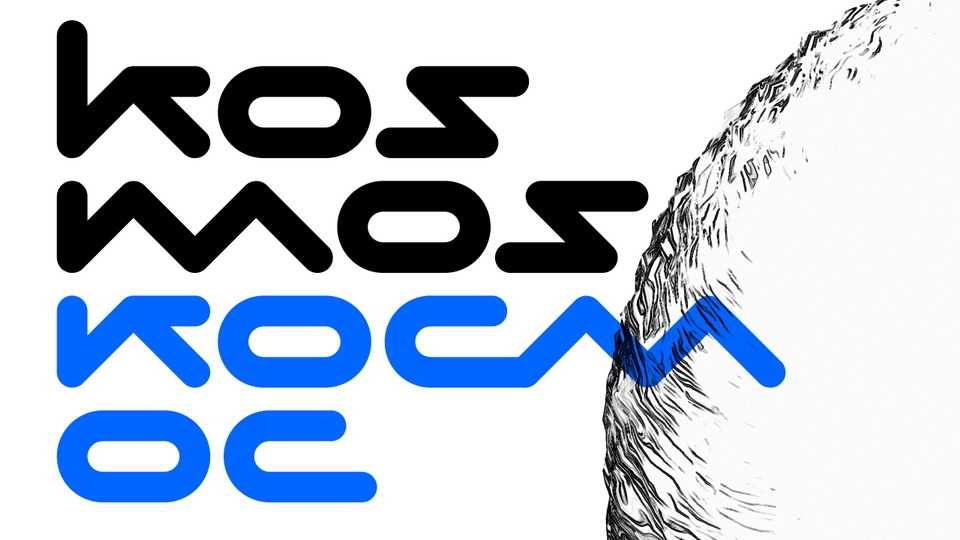
Download Kosmos font, a futuristic display typeface with a solid sci-fi techno feel. Kosmos font is a perfect choice for posters, album covers, big headlines, oversize typography, identity and packaging, editorial design.
Designer: Alexey Atapin